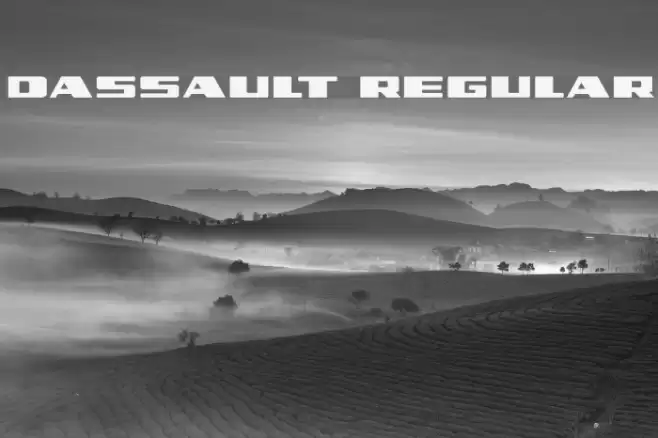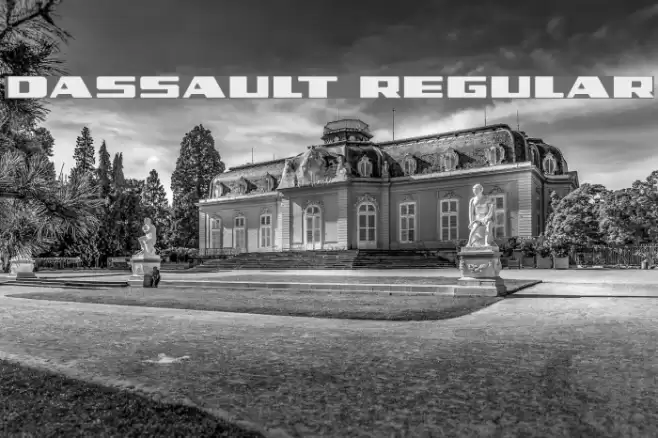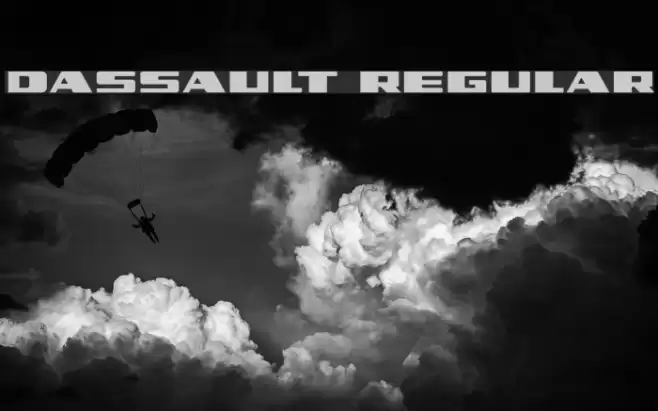
Dassault Regular Font
Dassault Regular Description
This font features a bold and striking design with a futuristic and geometric aesthetic. The characters are wide and blocky, with sharp angles and clean lines that convey a sense of strength and modernity. The uppercase letters are particularly prominent, with a uniform height and width that create a cohesive and balanced appearance. The numerals and special characters maintain the same bold and angular style, ensuring consistency across all elements. This font's design is ideal for making a strong visual impact, with its high contrast and distinctive shapes.
A bold, geometric font with a futuristic and modern design from Uncategorized fonts.
- Proposed Projects: Ideal for use in technology branding, sci-fi themed projects, video game titles, and modern advertising campaigns.